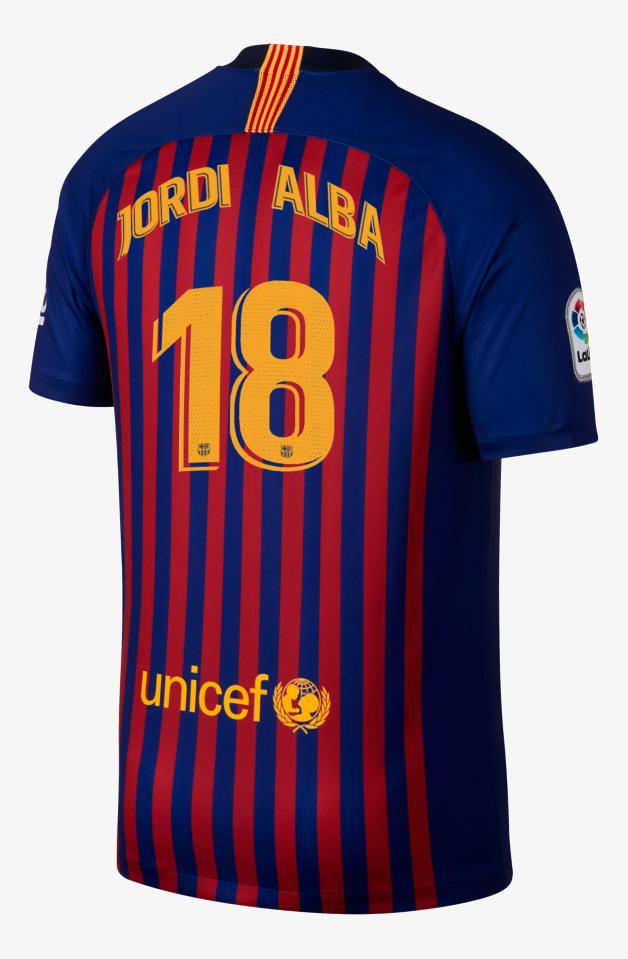
UPDATE: Barcelona 18-19 Font Revealed
Update: Barcelona has released a variety of pictures, showing off the new Barcelona 18-19 font in the official club store at Camp Nou.
The unveiling of Barcelona's 18-19 home kit also confirmed the club's new (and old) typeface. Despite concerns over the design, La Liga will continue to have a universal font next season.
Barcelona 18-19 Font
This picture shows the font used on the FC Barcelona 2018-19 jerseys.
Although it's the same style as last year, Barcelona opted to use the font without a border, which gives it a slimmer and more visually pleasing appearance.